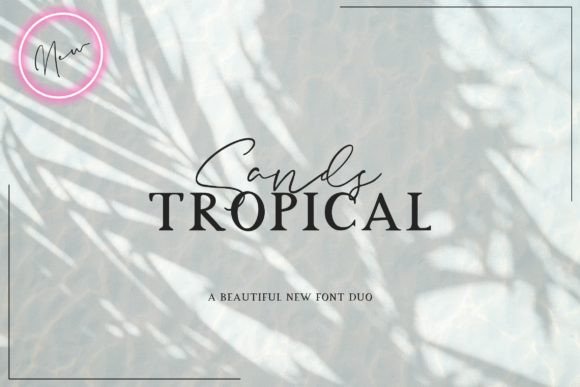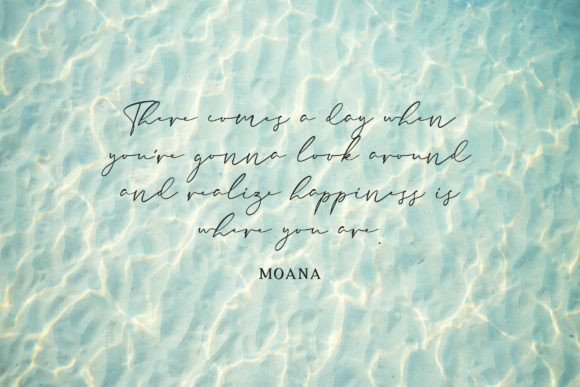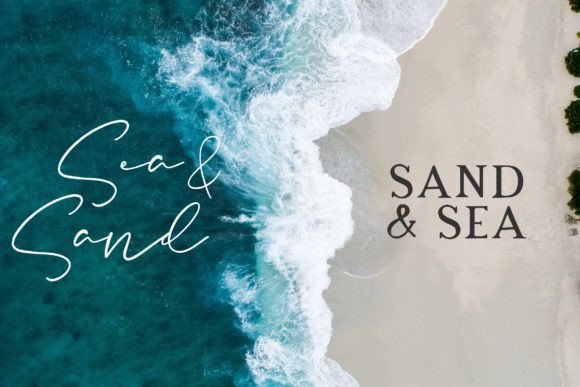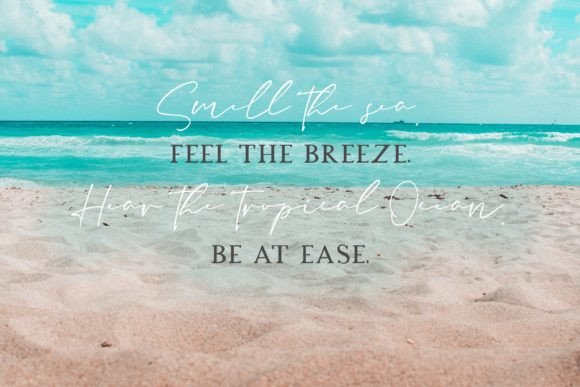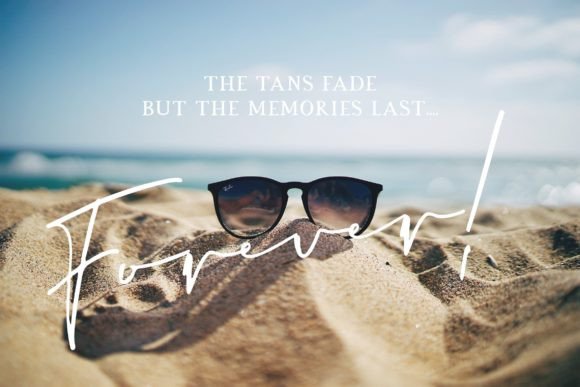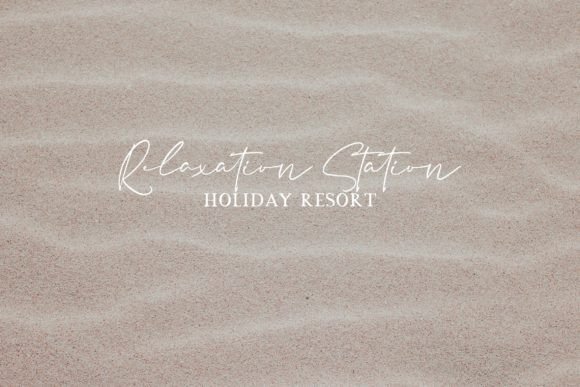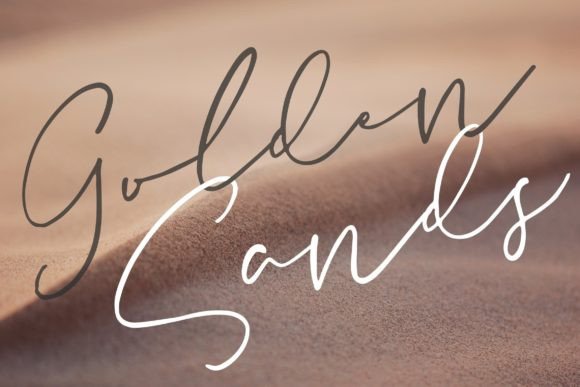
Sands Tropical Duo Font
About Sands Tropical Duo Font
“Sands Tropical” is not just a font; it’s a spectacular duo font featuring both serif and script styles. With its incredible versatility, this font duo is designed to elevate a wide range of designs to the highest levels of visual appeal. Whether you’re working on branding, logos, invitations, posters, or any creative project, adding “Sands Tropical” to your favorite ideas will make them come alive in a truly remarkable way.
The duo font structure, consisting of both serif and script styles, adds a layer of flexibility to “Sands Tropical.” The serif font brings a touch of classic sophistication, while the script font injects a sense of modernity and personal flair. This combination makes the font duo suitable for a diverse pool of design applications, ensuring that it can adapt seamlessly to different creative contexts.
Whether you’re aiming for a polished and professional look in branding or a more expressive and artistic feel in a poster design, “Sands Tropical” has the versatility to meet your needs. Its ability to complement various design elements makes it a valuable tool for designers looking to add a touch of style and cohesion to their projects.
As you incorporate “Sands Tropical” into your designs, you’ll notice how it breathes life into your creative ideas. The font duo is not just a set of characters; it’s a design enhancer that turns your projects into visually captivating and dynamic creations.
In summary, “Sands Tropical” is a font duo that combines versatility, style, and a touch of classic and modern aesthetics. Whether you’re a professional designer or someone with a passion for creativity, let “Sands Tropical” be the font duo that brings your favorite ideas to life in a spectacular and visually stunning way.